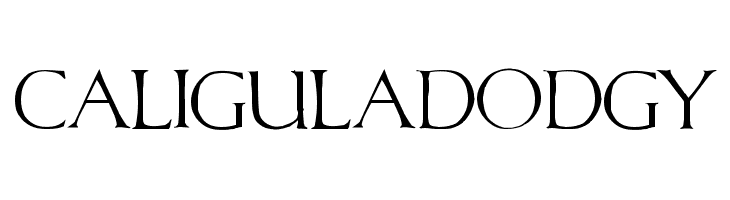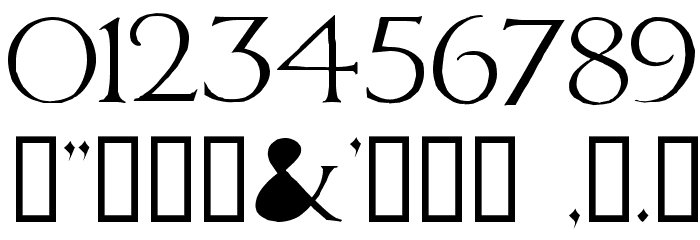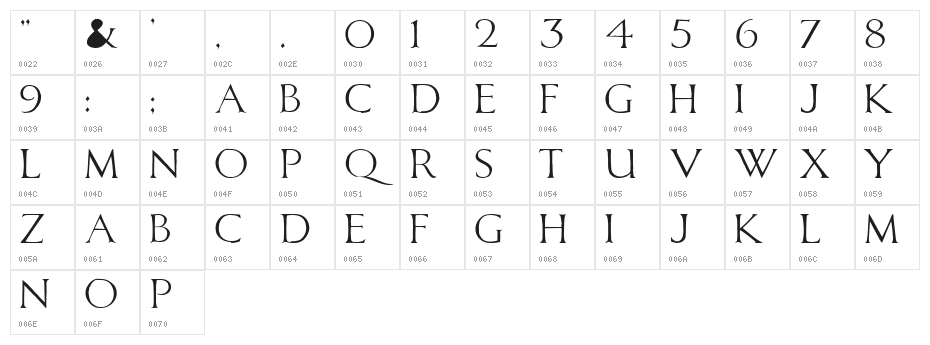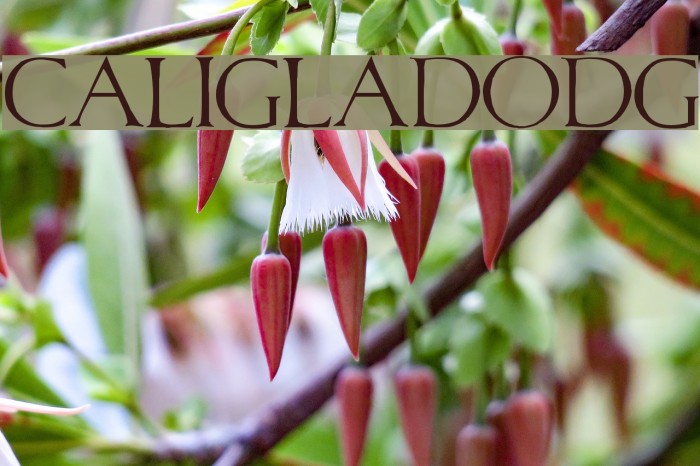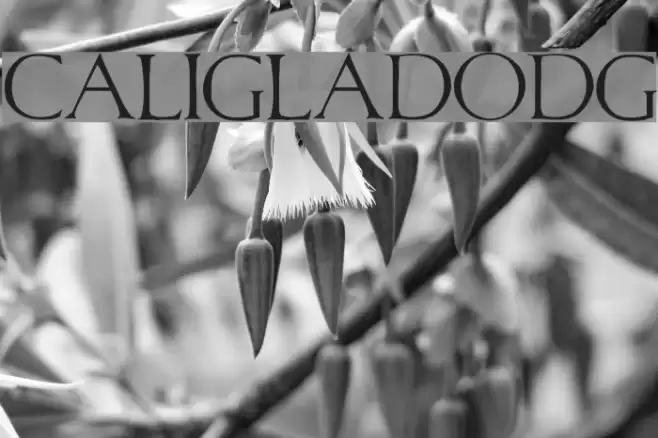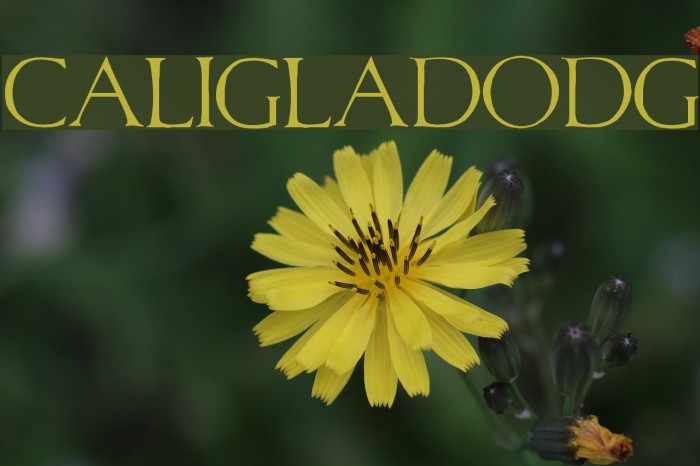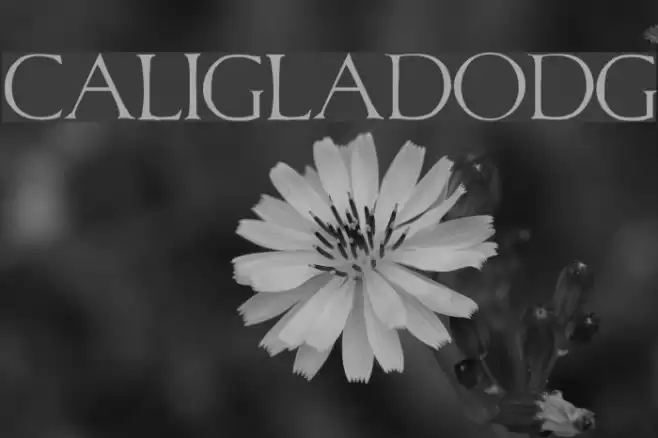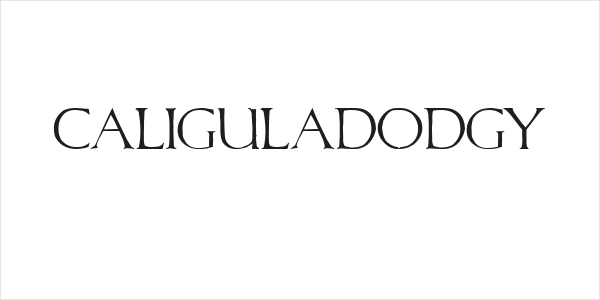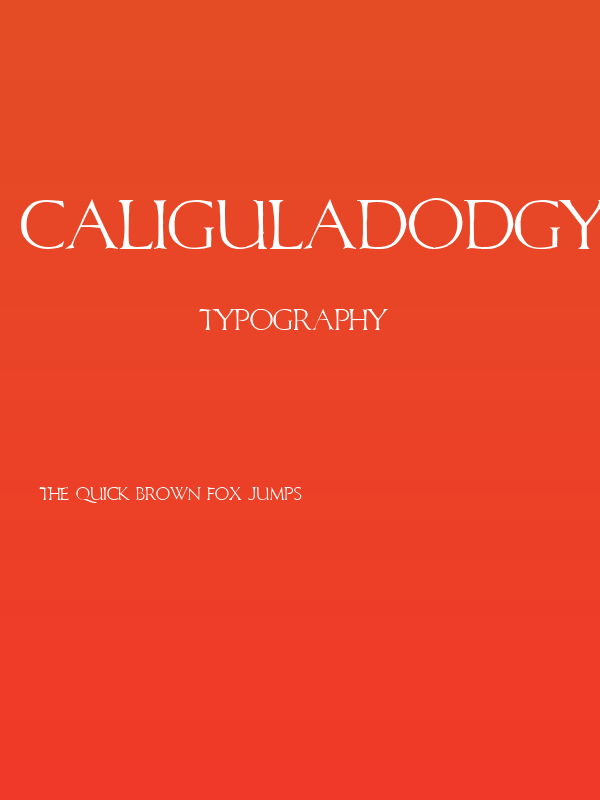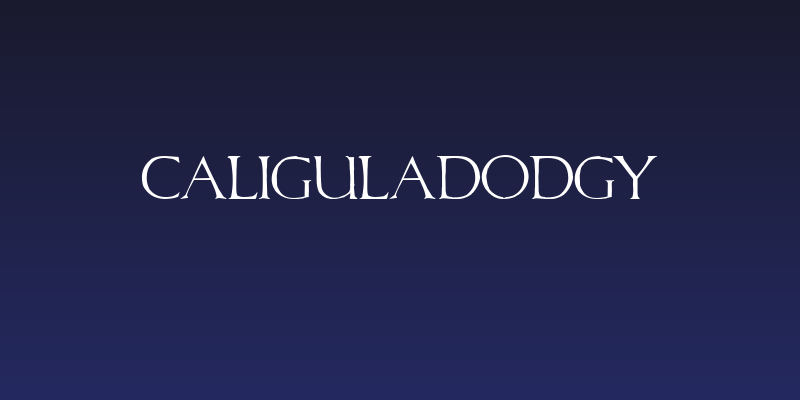
CaligulaDodgy Font
This font features a distinctive and elegant style with a classic touch. The uppercase letters are characterized by sharp, angular serifs and a slight curvature that adds a sense of sophistication. The lowercase letters maintain a consistent style, with a harmonious balance between thick and thin strokes, providing a refined and polished appearance. The numerals are uniquely styled, with a slight flair that complements the overall aesthetic. Special characters are designed with the same attention to detail, ensuring a cohesive look across all elements. This font's design is both timeless and versatile, making it suitable for a variety of applications.